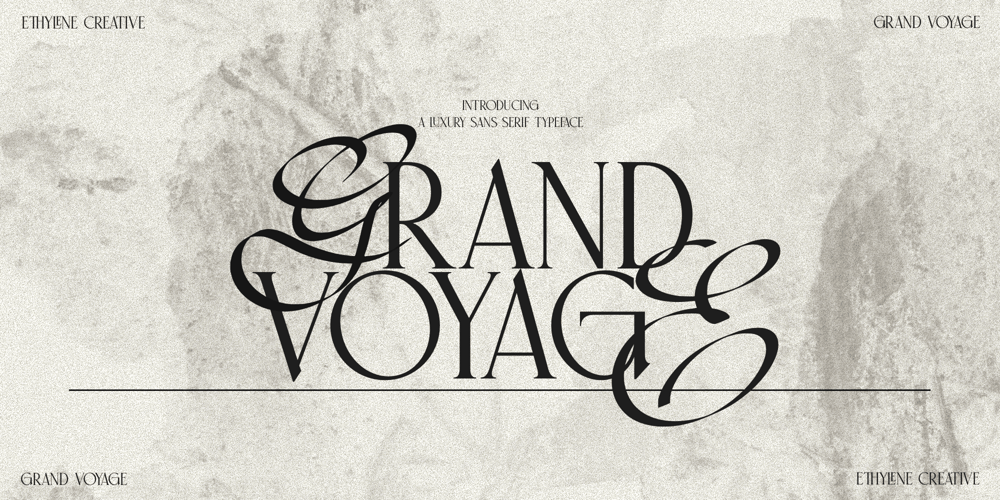
Grand Voyage
Grand Voyage font
Grand Voyage Font Family was designed by Dicky Fuadi, Cherly Nugroho and published by Ethylene. Grand Voyage contains 1 styles and family package options. Grand Voyage is a fusion typeface that combines an elegant serif with an elegant handwriting script. With just 1 typeface, you can get 2 styles which are also equipped with ligature features.This typeface is suitable for your various design needs. such as posters, book and magazine covers, packaging, merchandise, brochures, YouTube thumbnail, social media post, streetwear and so on.Use this display typeface to add a special street art touch to any design idea you can think of!